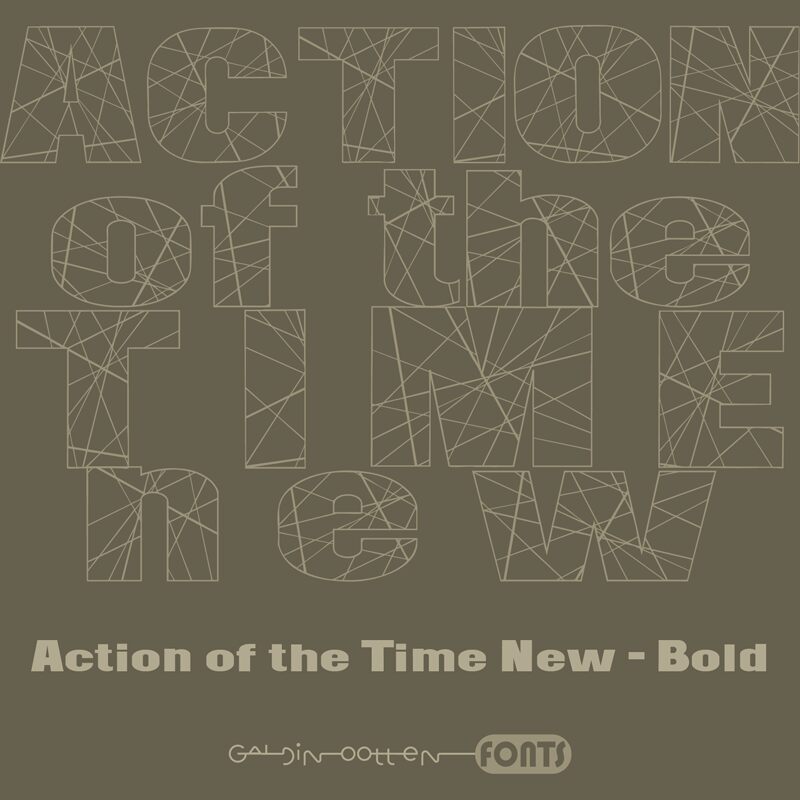
Action of the Time New font designed by Galdino Otten Fonts exudes vintage elegance and classic sophistication. This expanded, bold display font incorporates distorted details in each ornate glyph for a unique appearance. Action of the Time New takes after typical retro fonts characterized by decorated characters which all present an unusual, creative output.